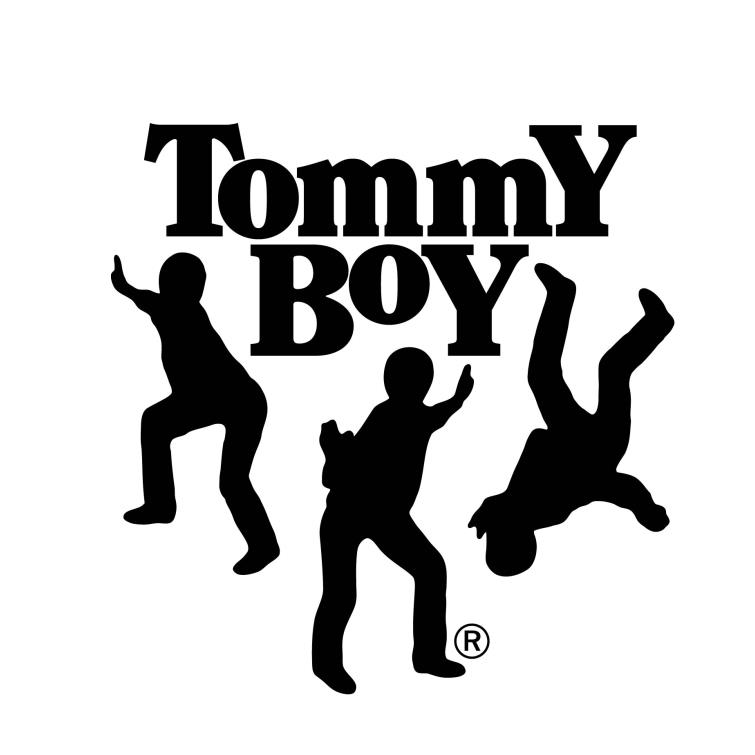
Tommy Boy Font
EntertainmentTommy Boy is an independent American hip-hop and dance music record label established in 1981. It is best known for its influential role in promoting and releasing innovative music in the genre during the 1980s and 1990s.
The Tommy Boy logo features the use of ITC Clearface Black font, a modern interpretation of the classic Clearface typeface created by Morris Fuller Benton for American Type Founders in 1907.